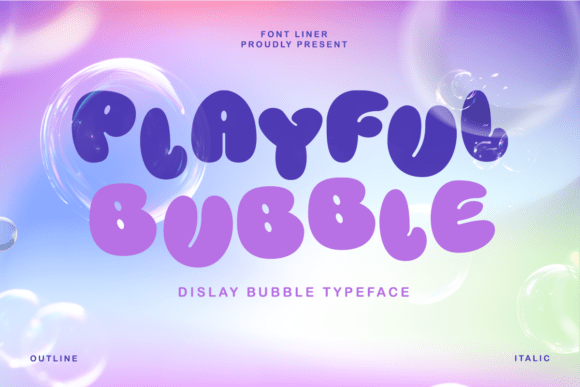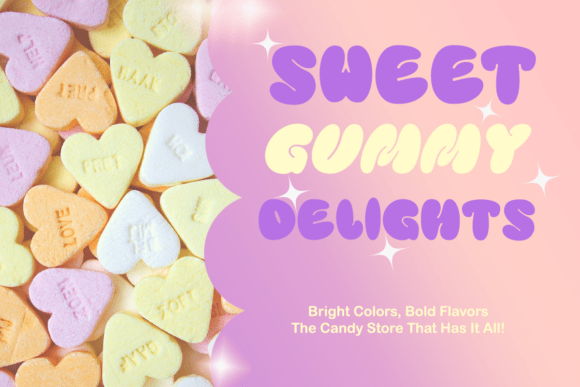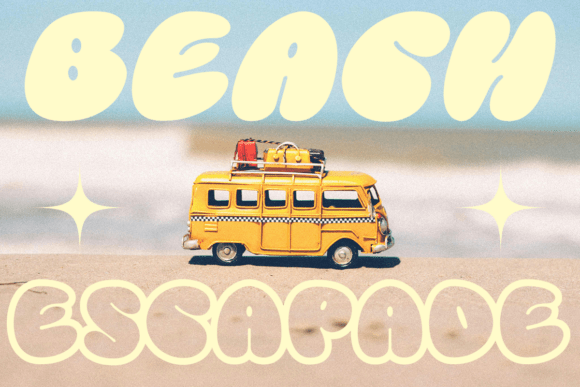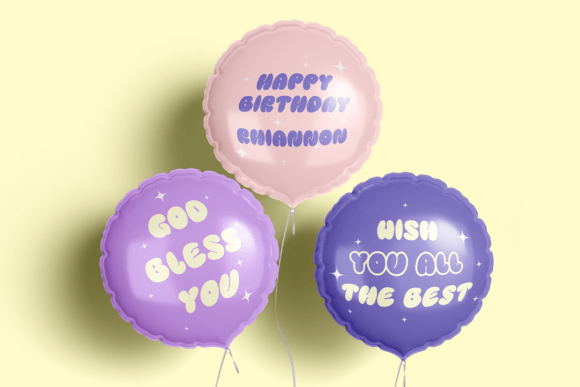
Playful Bubble Font: Sweet Display Font for Cricut & Cute Designs
About the Playful Bubble Font
Crafted with precision, the Playful Bubble Font is ready to bring your ideas to life. Playful Bubble is a bubbly and bold display font that radiates joy and creativity. With its rounded, inflated letterforms and quirky personality, this font is perfect for kids’ projects, toy packaging, games, party invites, and anything that needs a pop of fun. Available in outline and italic styles, it’s a versatile and eye-catching typeface that brings smiles to every design.
Playful Bubble excels in headlines, short text blocks, and logos where its bold character shines. Its inflated forms make it ideal for packaging, children’s books, and playful branding initiatives. However, it’s less suitable for body text or UI elements; its informality and large x-height hinder readability in extended passages.
Consider pairing Playful Bubble with a clean sans-serif like Open Sans for a balanced contrast, or a classic serif like Garamond for a touch of sophistication. A playful script font such as Pacifico could enhance the whimsical feel for certain projects. Avoid pairing it with other overly decorative fonts to prevent visual clutter.
Its core personality is undeniably cheerful and bouncy, lending itself to brands targeting a young audience or conveying happiness and fun. The outlined style offers a slightly lighter, more versatile option.